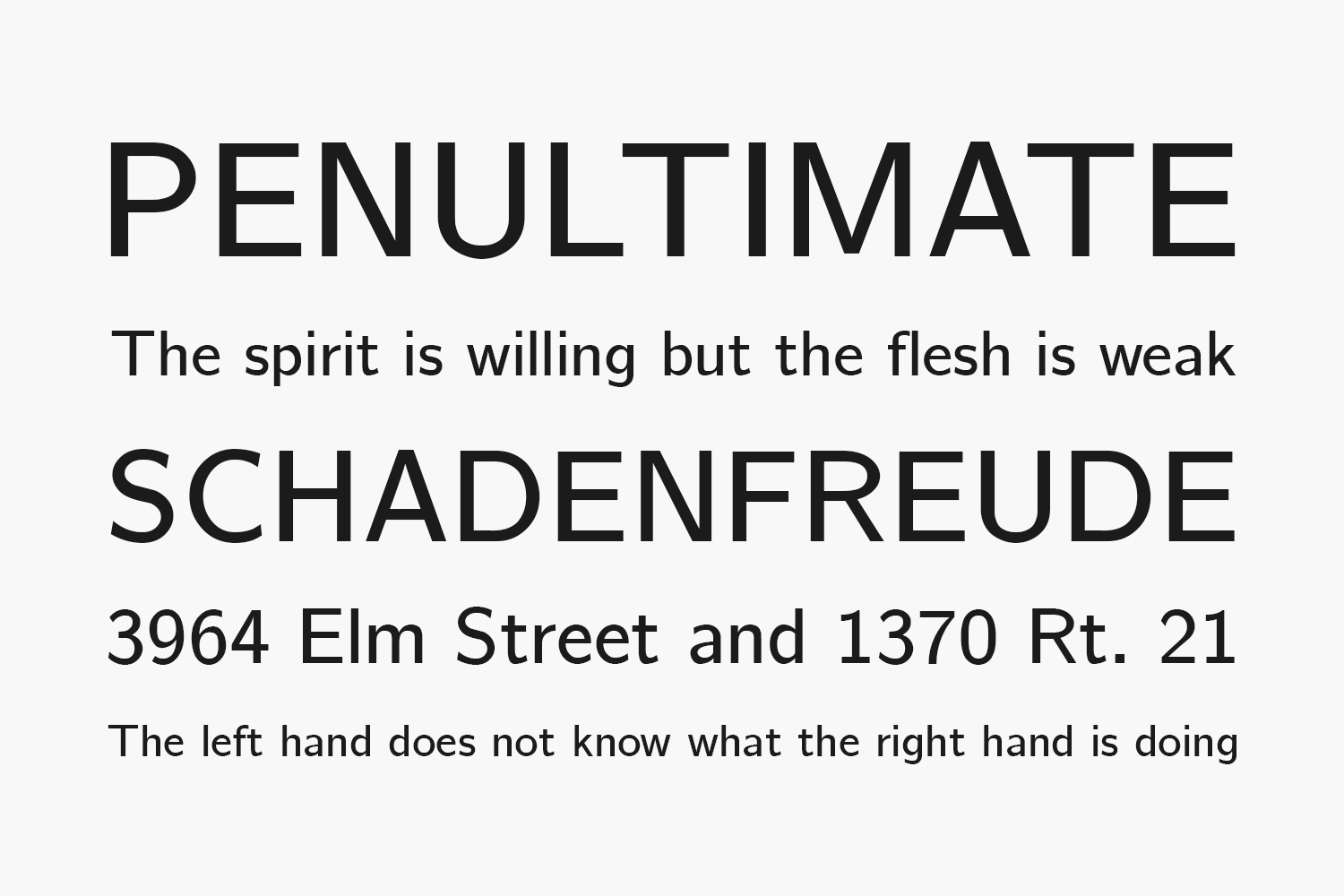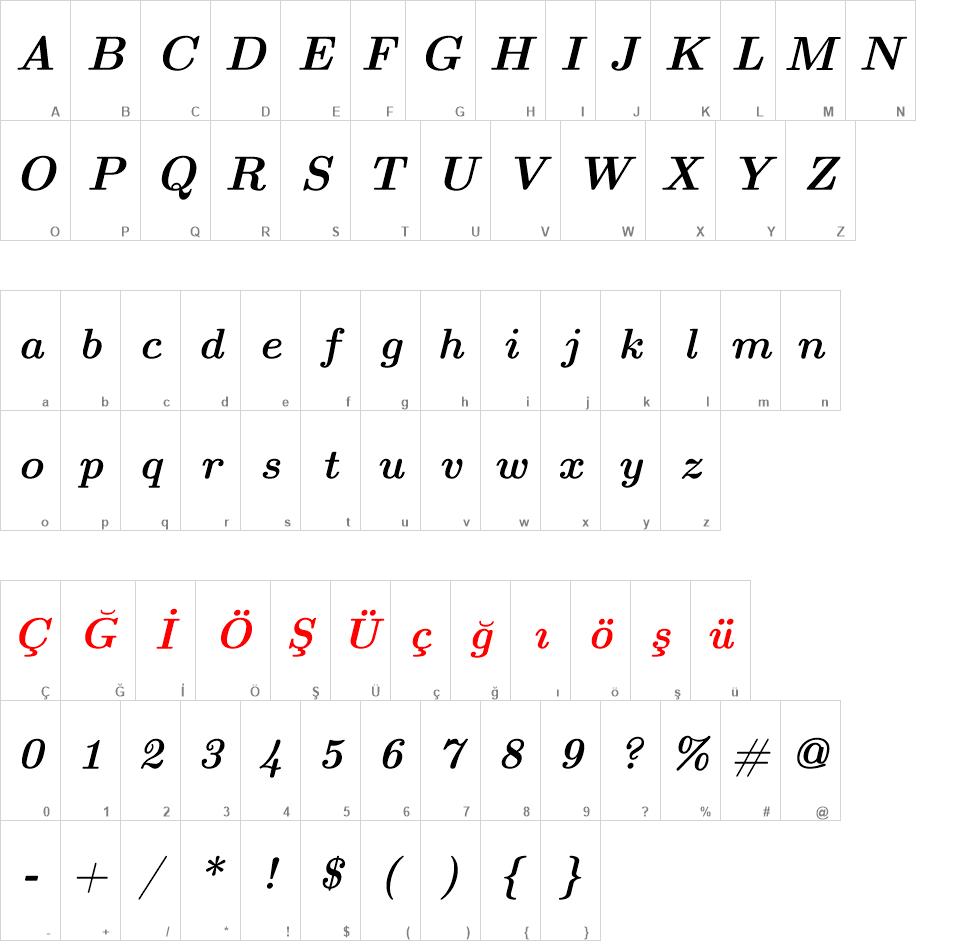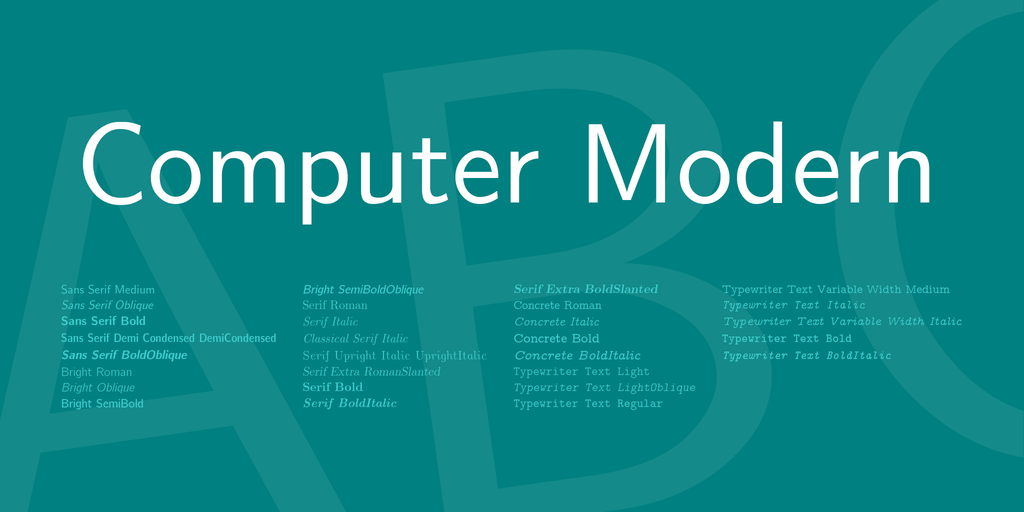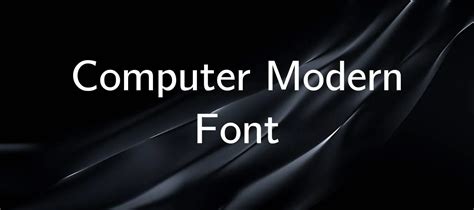
Computer Modern Fonts
Computer Modern Fonts - Web based on geometric lines and forms, modern fonts are clean, clear, and easy to read; Web making the web more beautiful, fast, and open through great typography Plus with a creative twist or dash of detail they. Web computer modern, a font created by a computer scientist for use with his own typesetting system tex, has become one.
Web making the web more beautiful, fast, and open through great typography Web based on geometric lines and forms, modern fonts are clean, clear, and easy to read; Web computer modern, a font created by a computer scientist for use with his own typesetting system tex, has become one. Plus with a creative twist or dash of detail they.
Web computer modern, a font created by a computer scientist for use with his own typesetting system tex, has become one. Web making the web more beautiful, fast, and open through great typography Plus with a creative twist or dash of detail they. Web based on geometric lines and forms, modern fonts are clean, clear, and easy to read;
Plus with a creative twist or dash of detail they. Web making the web more beautiful, fast, and open through great typography Web computer modern, a font created by a computer scientist for use with his own typesetting system tex, has become one. Web based on geometric lines and forms, modern fonts are clean, clear, and easy to read;
Plus with a creative twist or dash of detail they. Web computer modern, a font created by a computer scientist for use with his own typesetting system tex, has become one. Web making the web more beautiful, fast, and open through great typography Web based on geometric lines and forms, modern fonts are clean, clear, and easy to read;
Web computer modern, a font created by a computer scientist for use with his own typesetting system tex, has become one. Web making the web more beautiful, fast, and open through great typography Web based on geometric lines and forms, modern fonts are clean, clear, and easy to read; Plus with a creative twist or dash of detail they.
Web based on geometric lines and forms, modern fonts are clean, clear, and easy to read; Web computer modern, a font created by a computer scientist for use with his own typesetting system tex, has become one. Plus with a creative twist or dash of detail they. Web making the web more beautiful, fast, and open through great typography
Computer Modern fonts
Web based on geometric lines and forms, modern fonts are clean, clear, and easy to read; Web computer modern, a font created by a computer scientist for use with his own typesetting system tex, has become one. Web making the web more beautiful, fast, and open through great typography Plus with a creative twist or dash of detail they.
Computer Modern Fonts Shmonts
Web based on geometric lines and forms, modern fonts are clean, clear, and easy to read; Plus with a creative twist or dash of detail they. Web computer modern, a font created by a computer scientist for use with his own typesetting system tex, has become one. Web making the web more beautiful, fast, and open through great typography
Web making the web more beautiful, fast, and open through great typography Web computer modern, a font created by a computer scientist for use with his own typesetting system tex, has become one. Plus with a creative twist or dash of detail they. Web based on geometric lines and forms, modern fonts are clean, clear, and easy to read;
Computer Modern font font
Plus with a creative twist or dash of detail they. Web based on geometric lines and forms, modern fonts are clean, clear, and easy to read; Web computer modern, a font created by a computer scientist for use with his own typesetting system tex, has become one. Web making the web more beautiful, fast, and open through great typography
Computer Modern Font Family All Free Fonts
Plus with a creative twist or dash of detail they. Web based on geometric lines and forms, modern fonts are clean, clear, and easy to read; Web computer modern, a font created by a computer scientist for use with his own typesetting system tex, has become one. Web making the web more beautiful, fast, and open through great typography
Download Computer Modern font
Plus with a creative twist or dash of detail they. Web making the web more beautiful, fast, and open through great typography Web computer modern, a font created by a computer scientist for use with his own typesetting system tex, has become one. Web based on geometric lines and forms, modern fonts are clean, clear, and easy to read;
Web based on geometric lines and forms, modern fonts are clean, clear, and easy to read; Web computer modern, a font created by a computer scientist for use with his own typesetting system tex, has become one. Plus with a creative twist or dash of detail they.